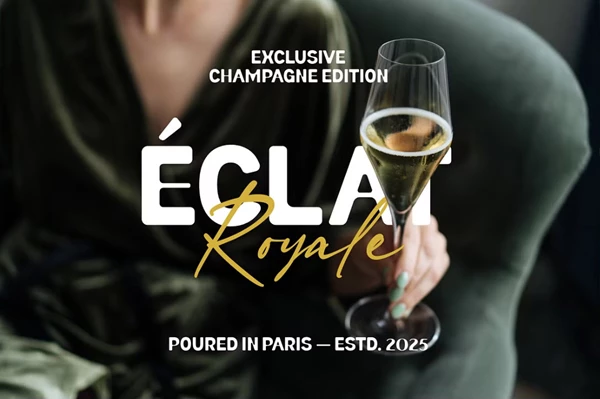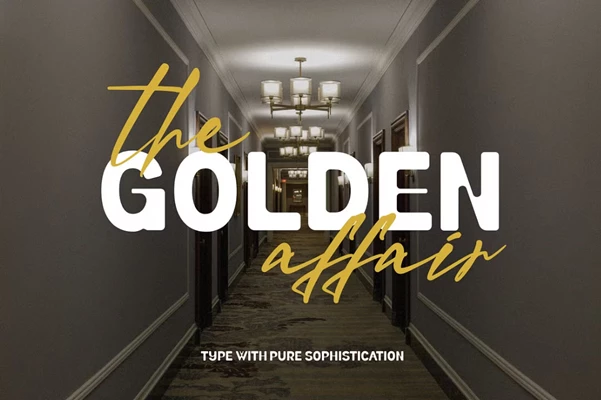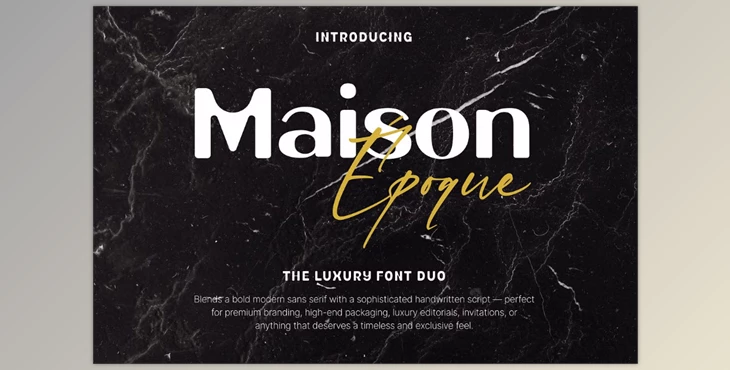
Maison Epoque – The Luxury Font Duo:
Maison Époque is a bold sans-serif and handwriting-inspired script font duo. The ultimate combination for elegance and sophistication, sure to bring a vintage yet luxe quality to any project themed as such or for high-end entrepreneurial offerings. Luxury branding, craft beverage labels, fashion magazines and editorials, not to mention custom invitations for only the most select events. The serif has a strong, prominent presence, while the handwriting inspires sophistication and elegance across any project needing one or both. The ideal font combo for custom labels for sparkling wine brands and their wedding invitations.
Some great features of Maison Epoque – The Luxury Font Duo:
- Bold paired with a sans-serif font and a handwriting-inspired script
- Smooth curves with ease of legibility
- Good for large or small applications
- Ideal for print and digital